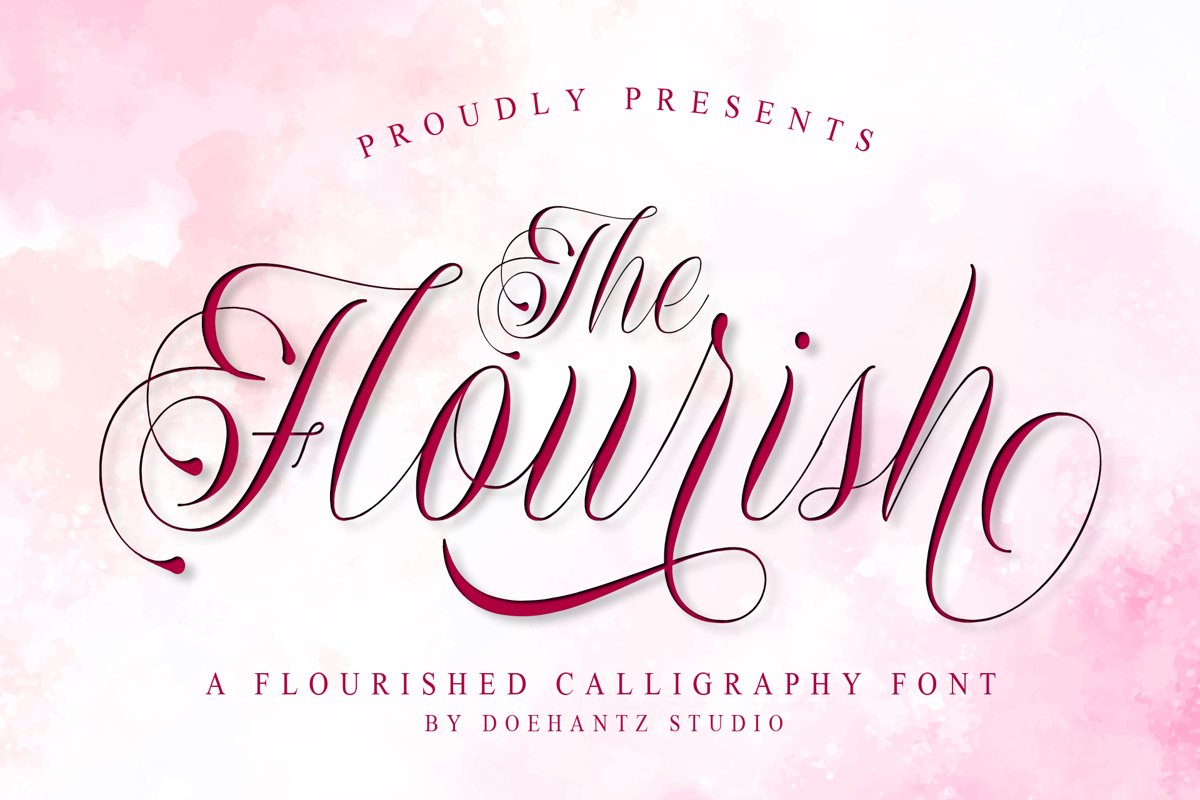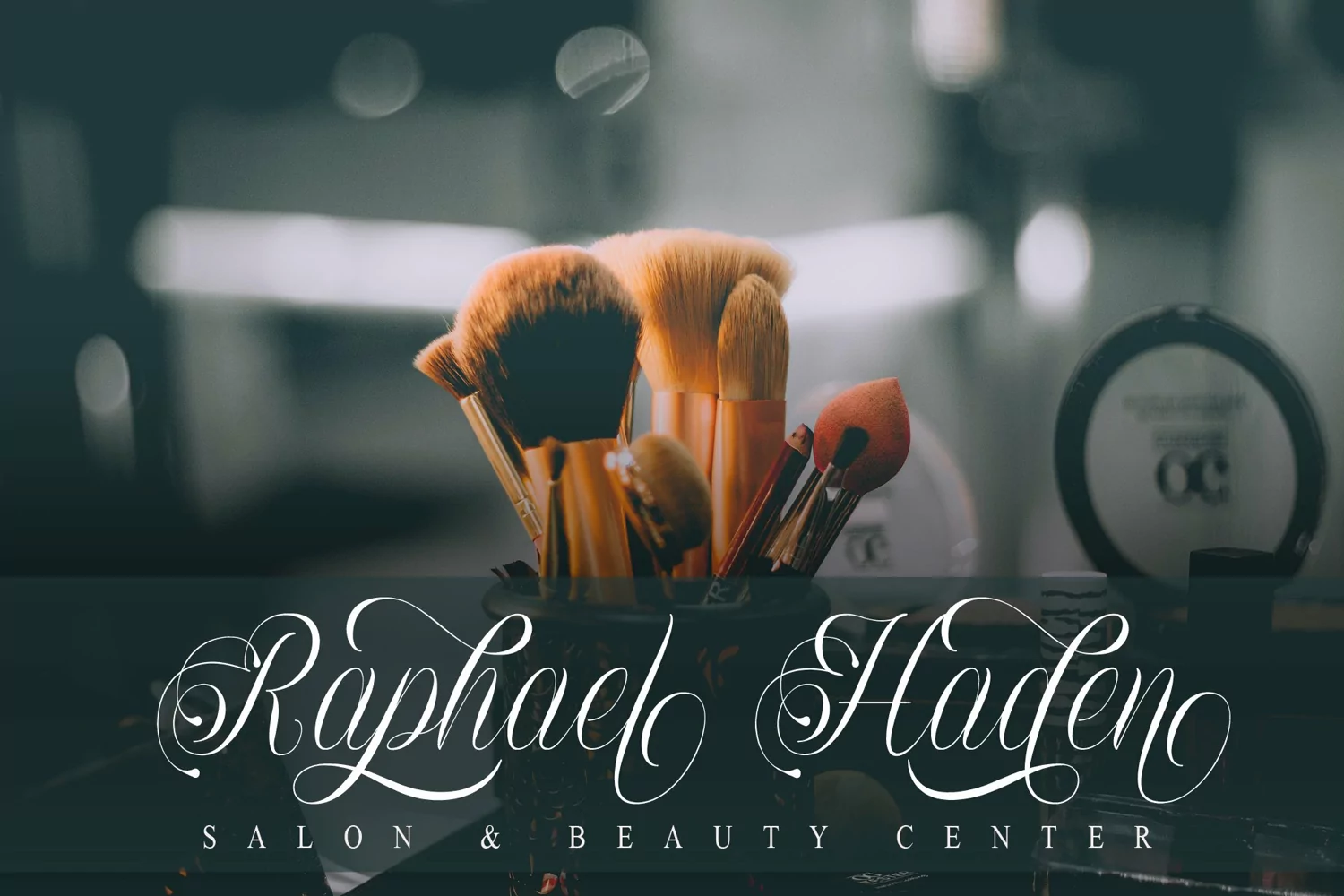
Hello, Introducing our latest product, The Flourish, is a flourished calligraphy font. Alternates of every letter makes any design projects so perfect. The Flourish is very beautiful for many design projects such as product brand, quotes, clothes, business card, wedding invitation, signature, logos, lettering, etc. Various kinds of alternate characters that will surely enhance every design projects. Please enjoy this font ! Thanks for visiting and downloading my font. Here are many features in this font : The Flourish otf The Flourish ttf PUA encoded Numerals and Punctuations Multilingual Support There are many sophisticated alternate characters. any question? don't hesitate to send us an email. Thank You Have a Nice Day.